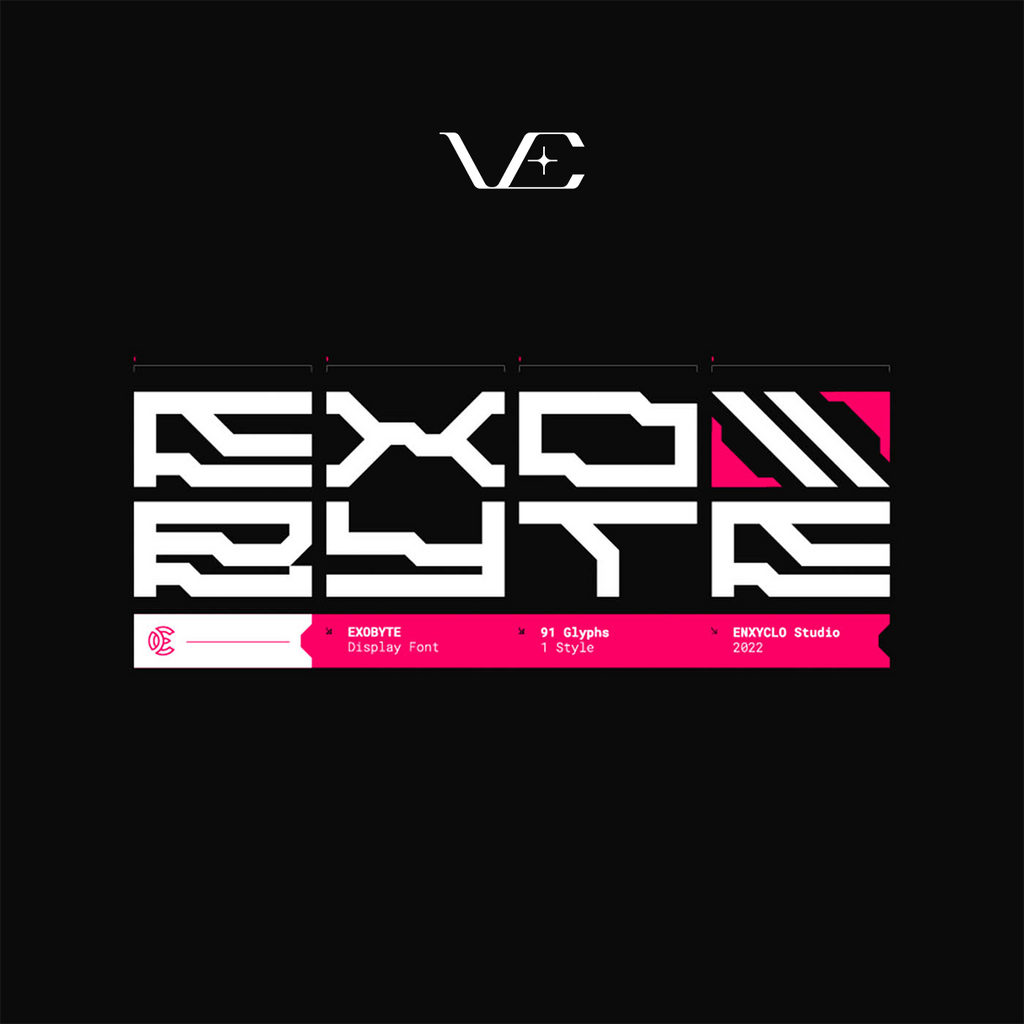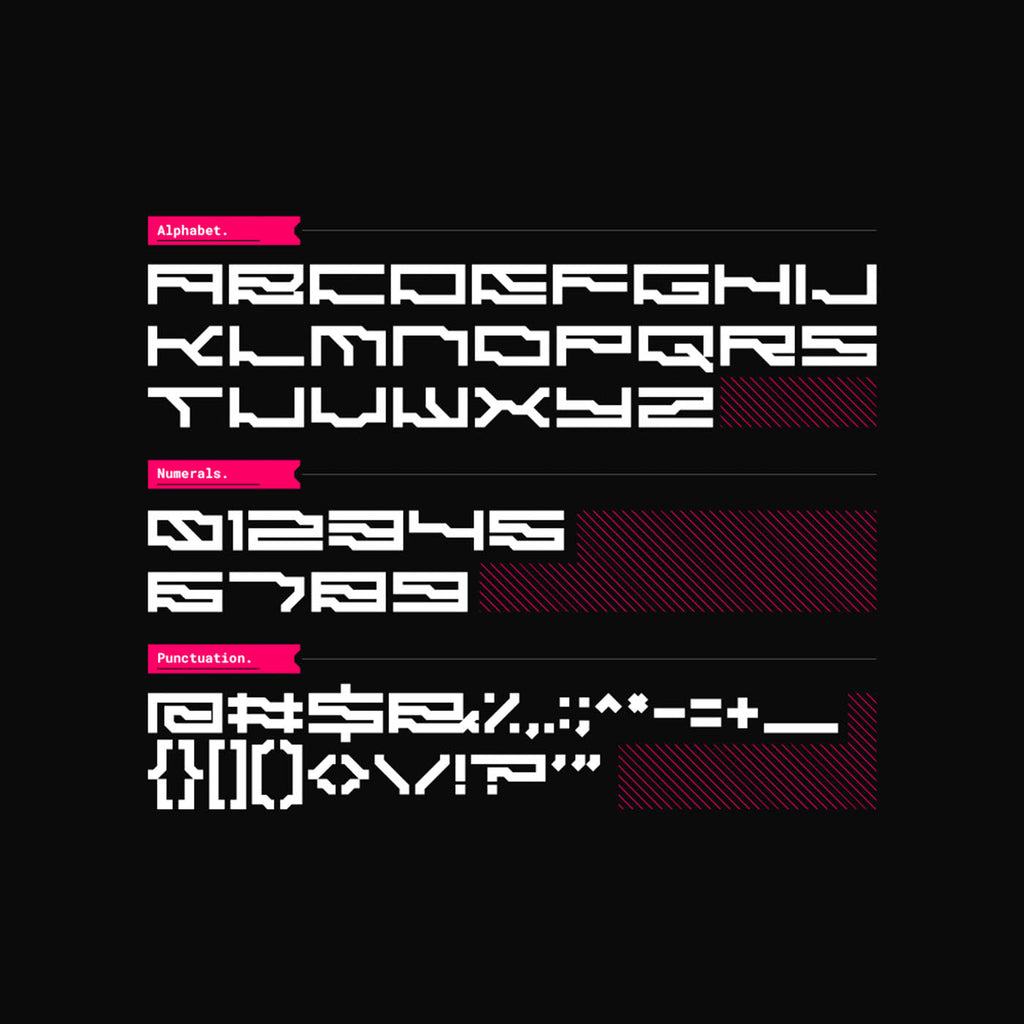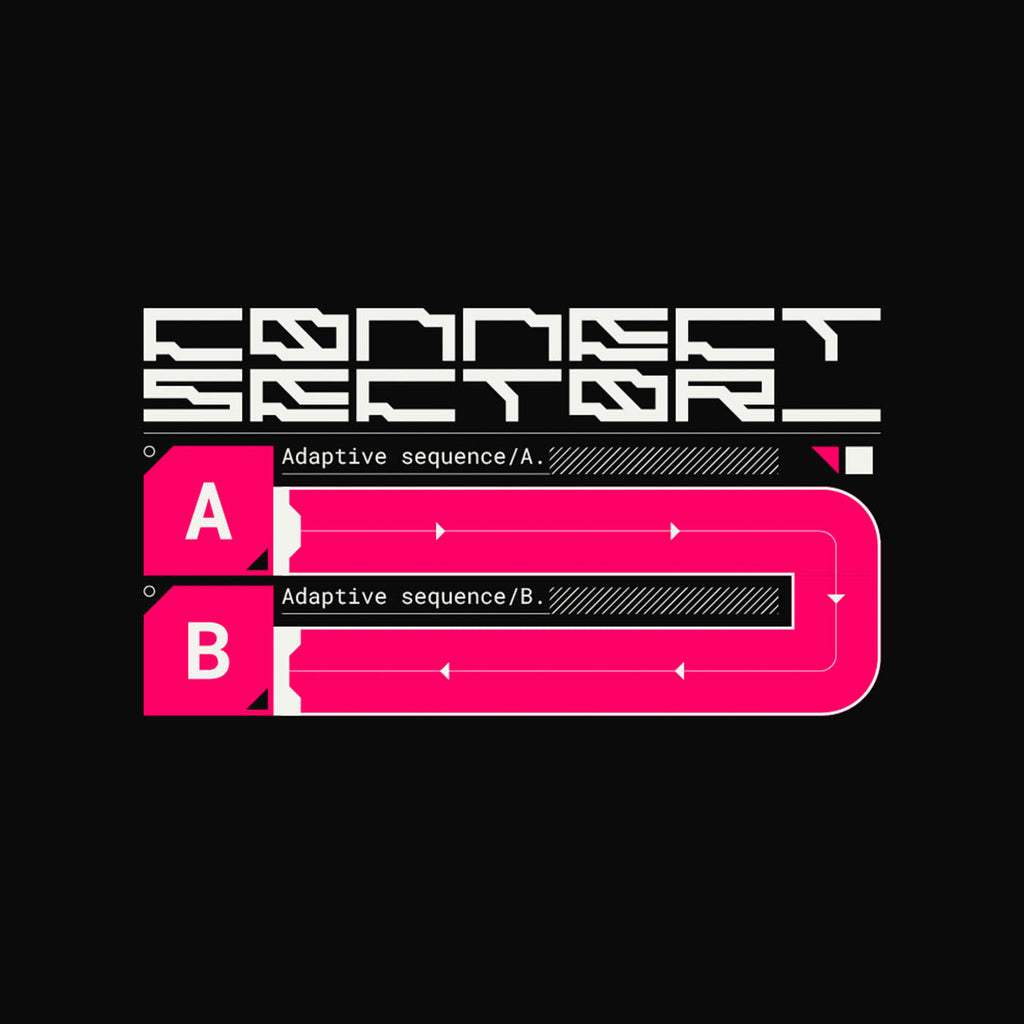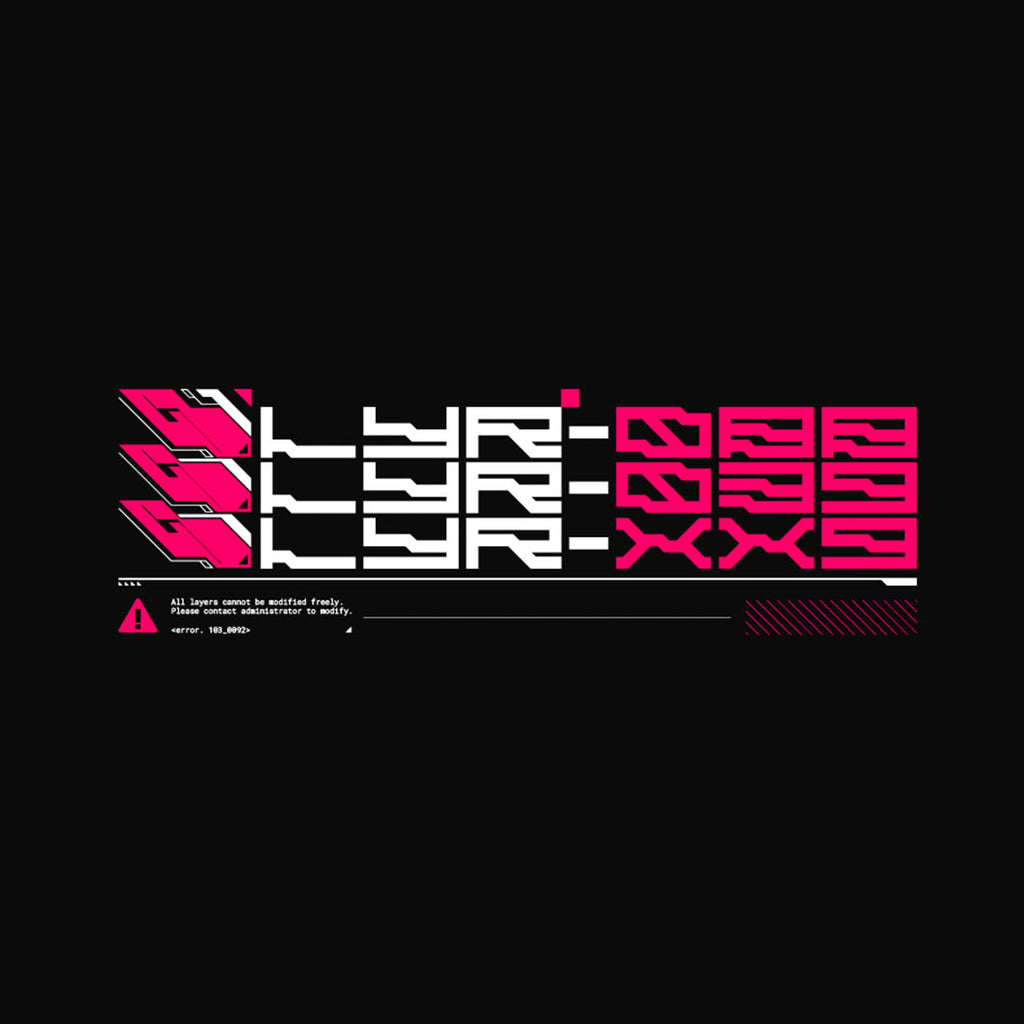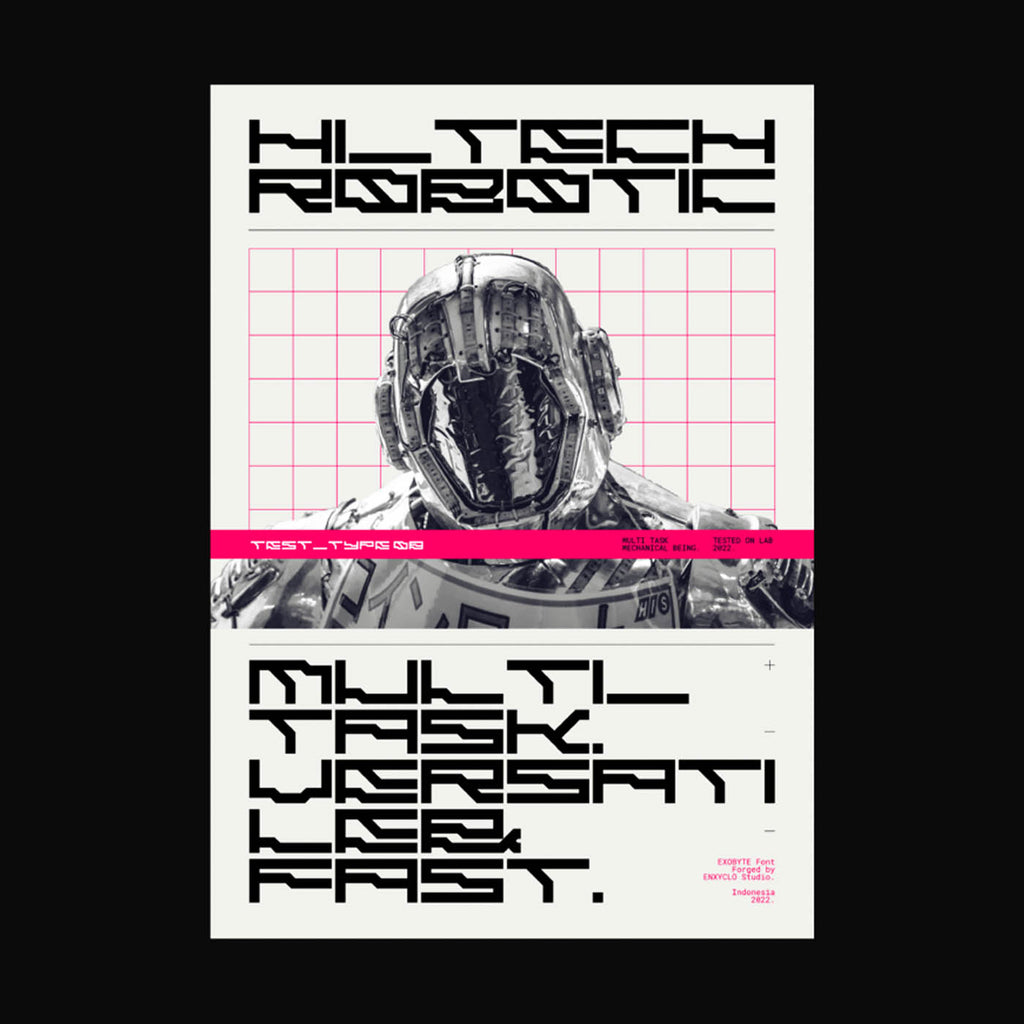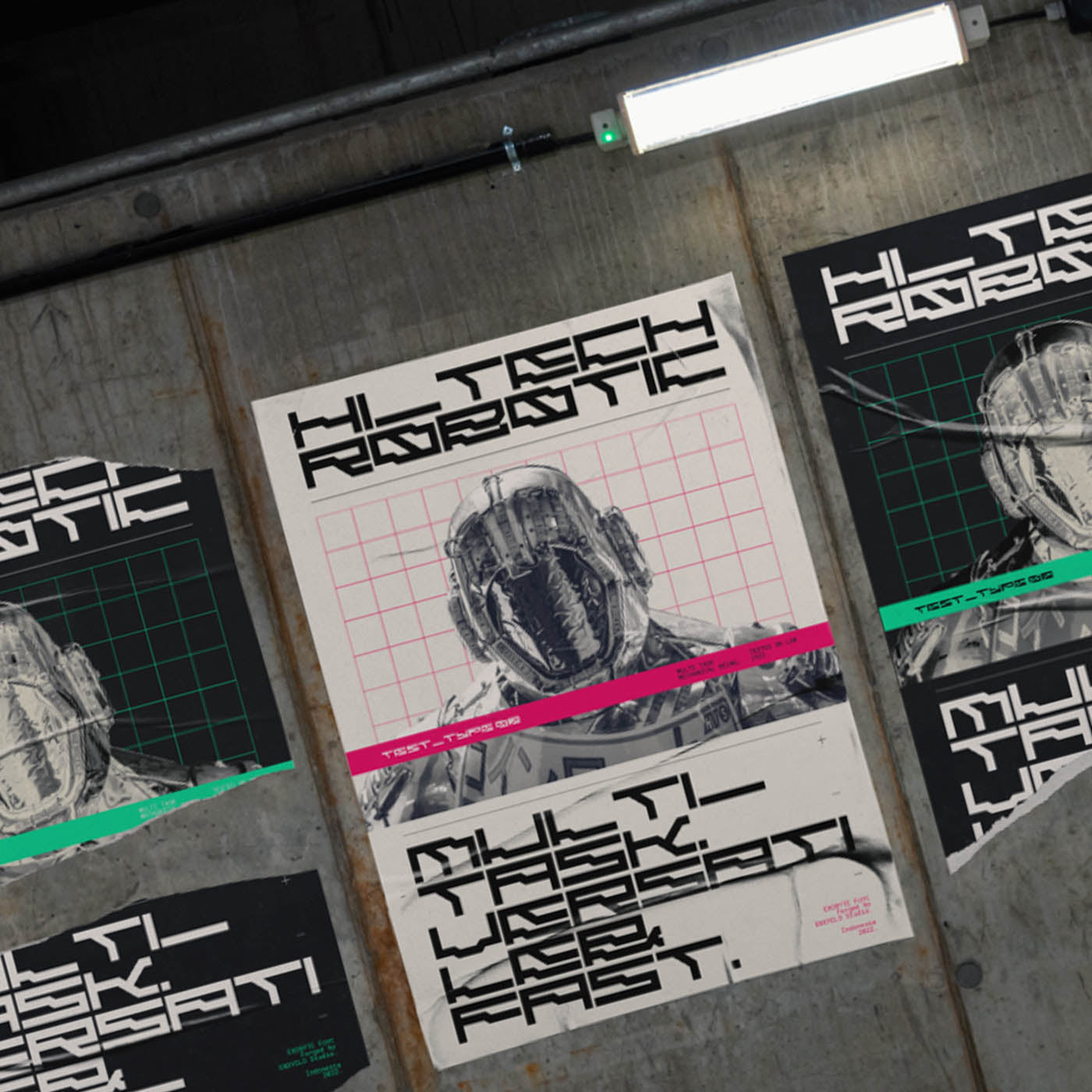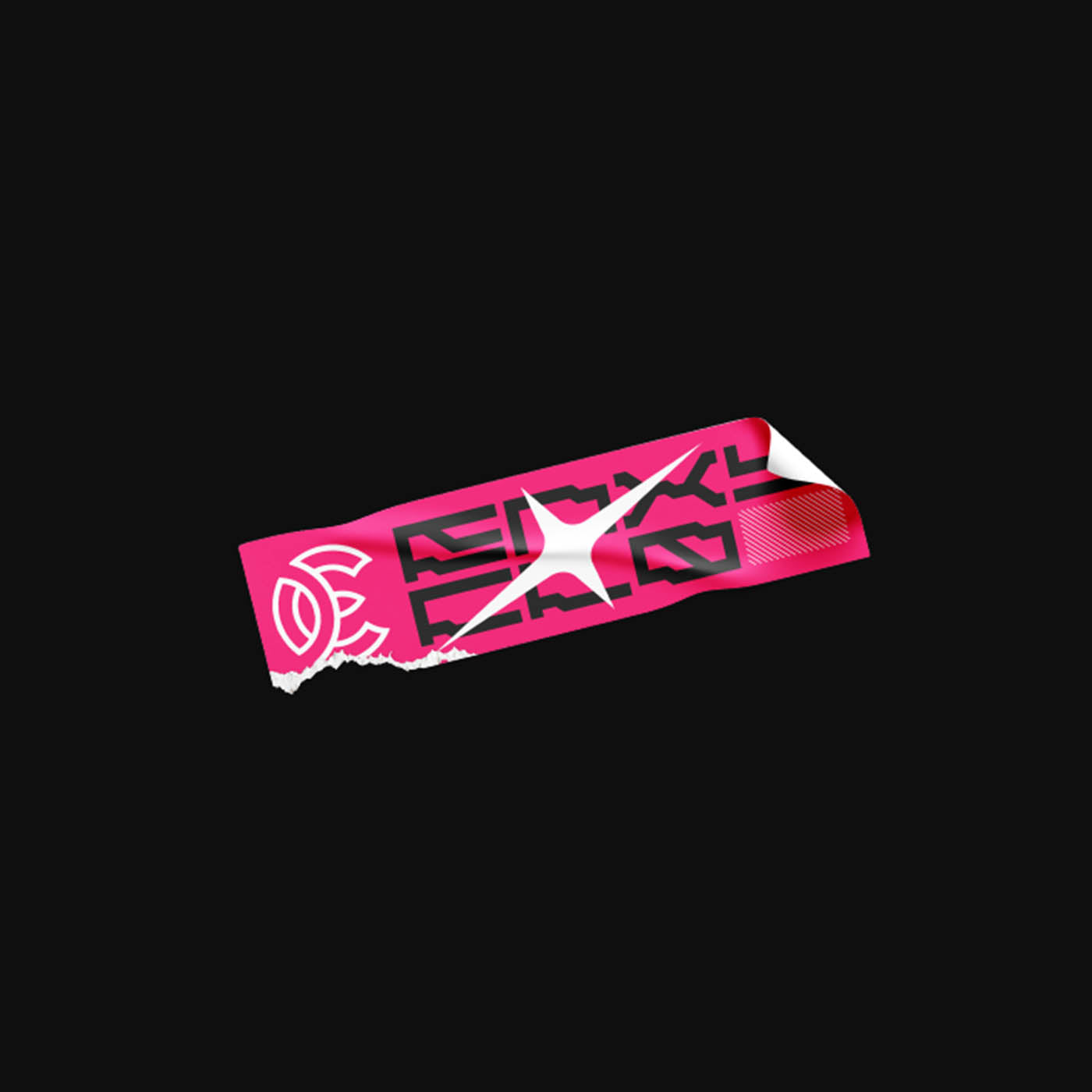
EXOBYTE • Cyberpunk Typeface
EXOBYTE is cyberpunk futuristic mecha display font. The design of typeface will make your project more powerful and inspiring. It is perfect for headline, billboard, magazines, website, titles, poster, branding, thumbnail, t-shirt design, street wear design, and creative logos, or any project that needs futuristic touch. With this beautiful futuristic display font, absolutely you can make your project stand out from the rest. See the previews above to get some inspiration on how to use them.
- Contains 91 Glyphs
- Uppercase, Numeral, Punctuation & Symbol